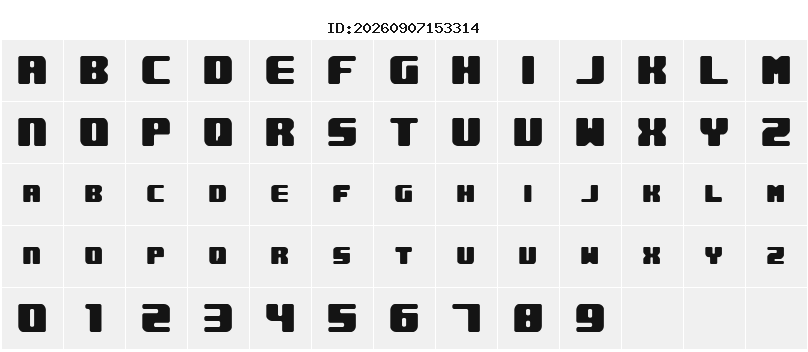
Underwhelmed (BRK) Preview
• Font Name: Underwhelmed (BRK)
• Full Font Name: Underwhelmed (BRK)
About Underwhelmed (BRK).ttf
Underwhelmed (BRK).ttf is a modern, elegant sans-serif font designed for ultimate readability and visual harmony. Perfect for branding, headlines, web design, and print materials.